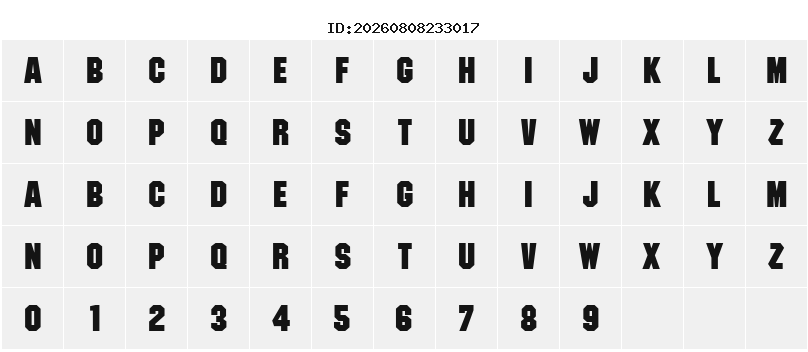
Pittsburgh Preview
• Font Name: Pittsburgh
• Full Font Name: Pittsburgh Bold
About Pittsburgh.ttf
Pittsburgh.ttf is a modern, elegant sans-serif font designed for ultimate readability and visual harmony. Perfect for branding, headlines, web design, and print materials.